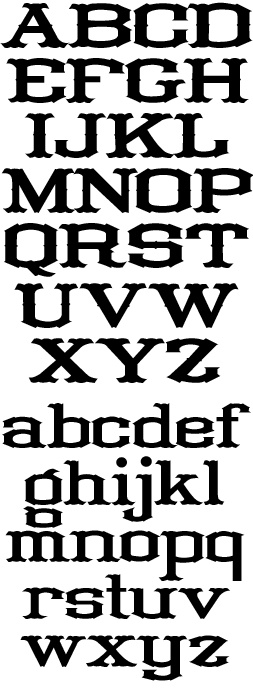
LHF Tuscan
Full Block Extended typeface with half-circles cut out of the tops and bottoms. Ornamental caps. Includes large and small caps, punctuation and numerals.